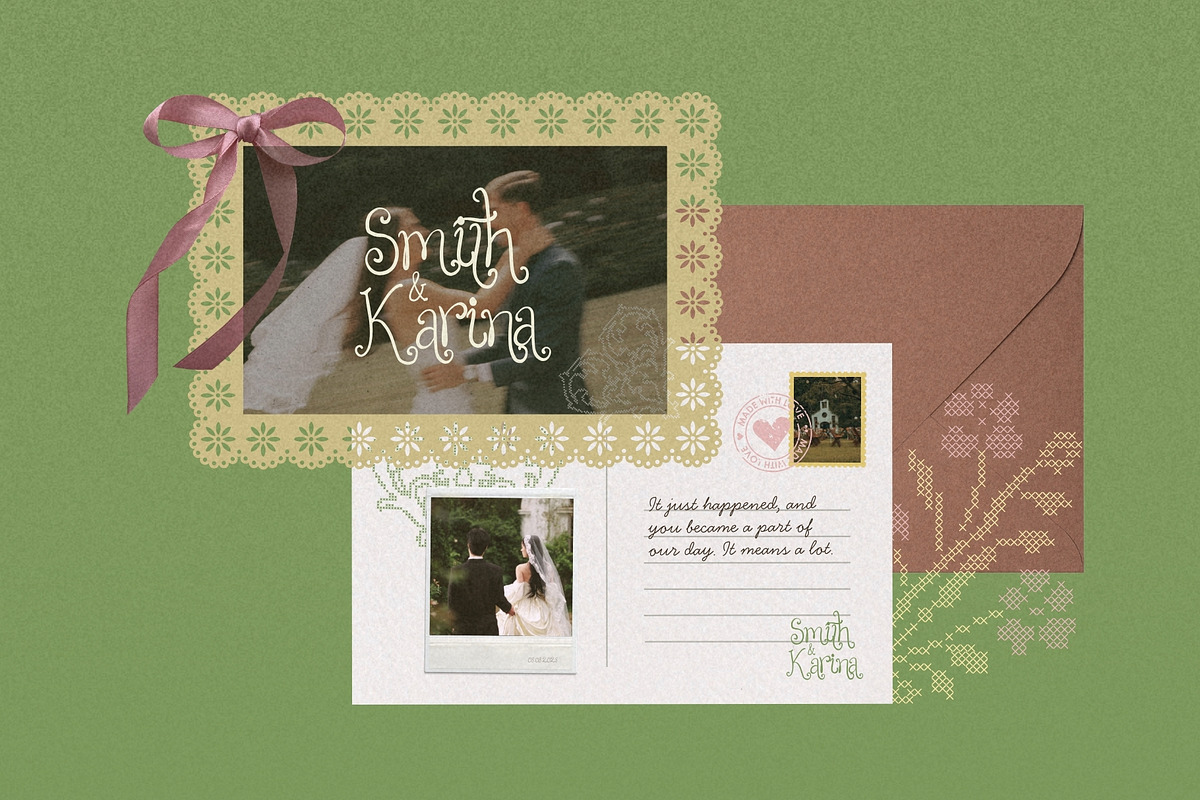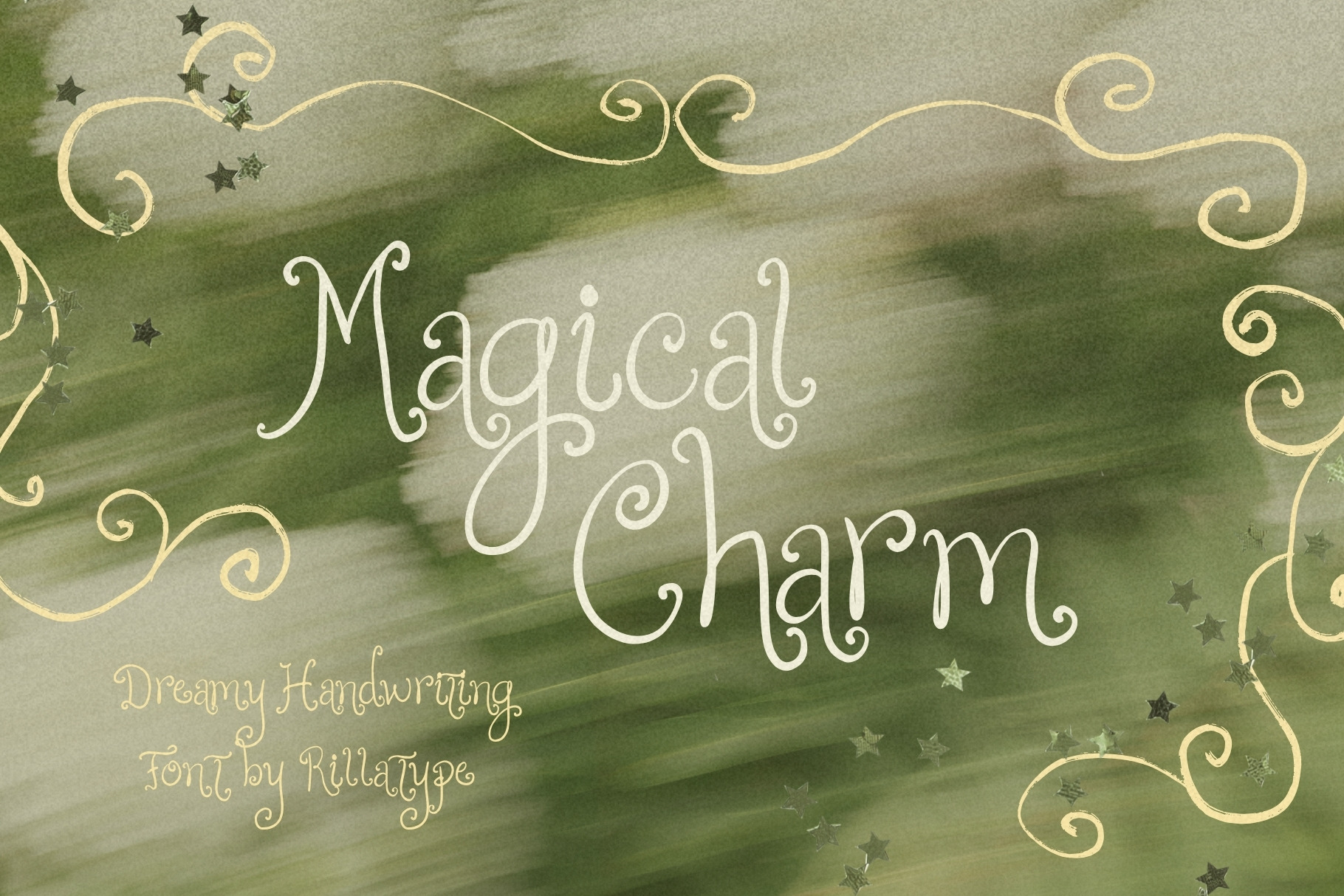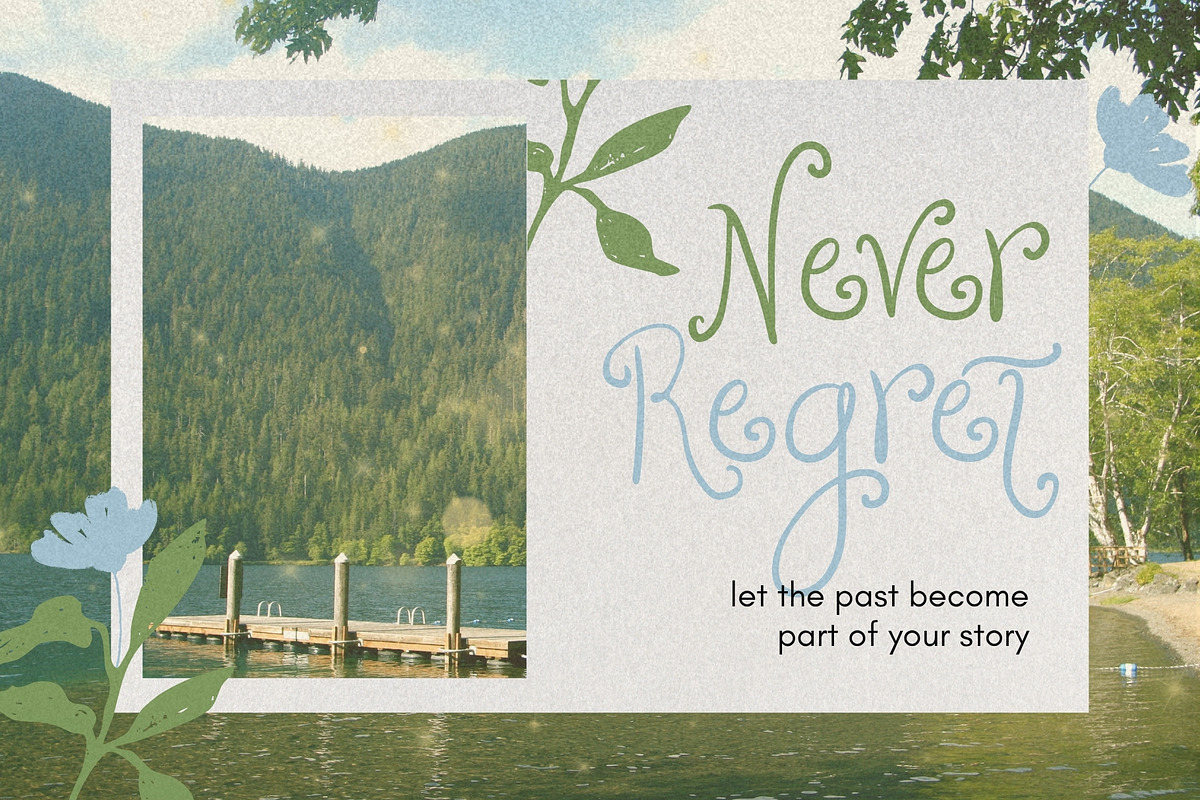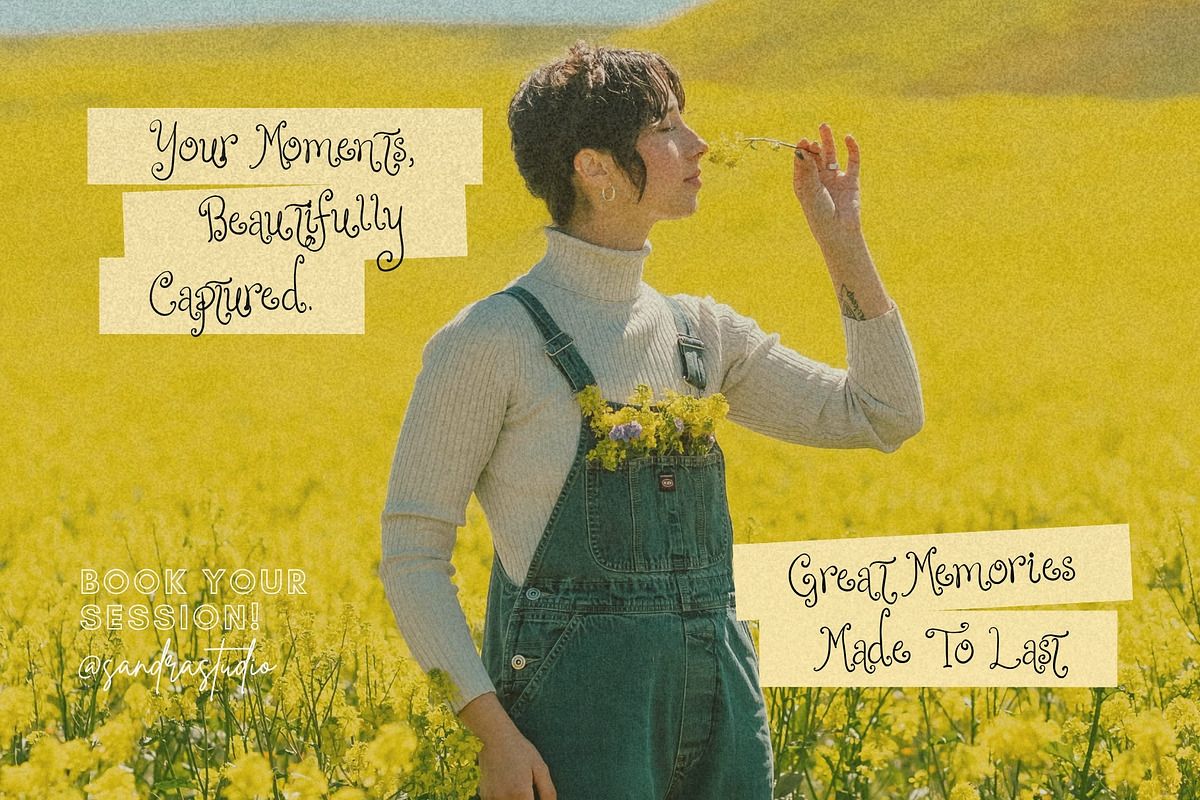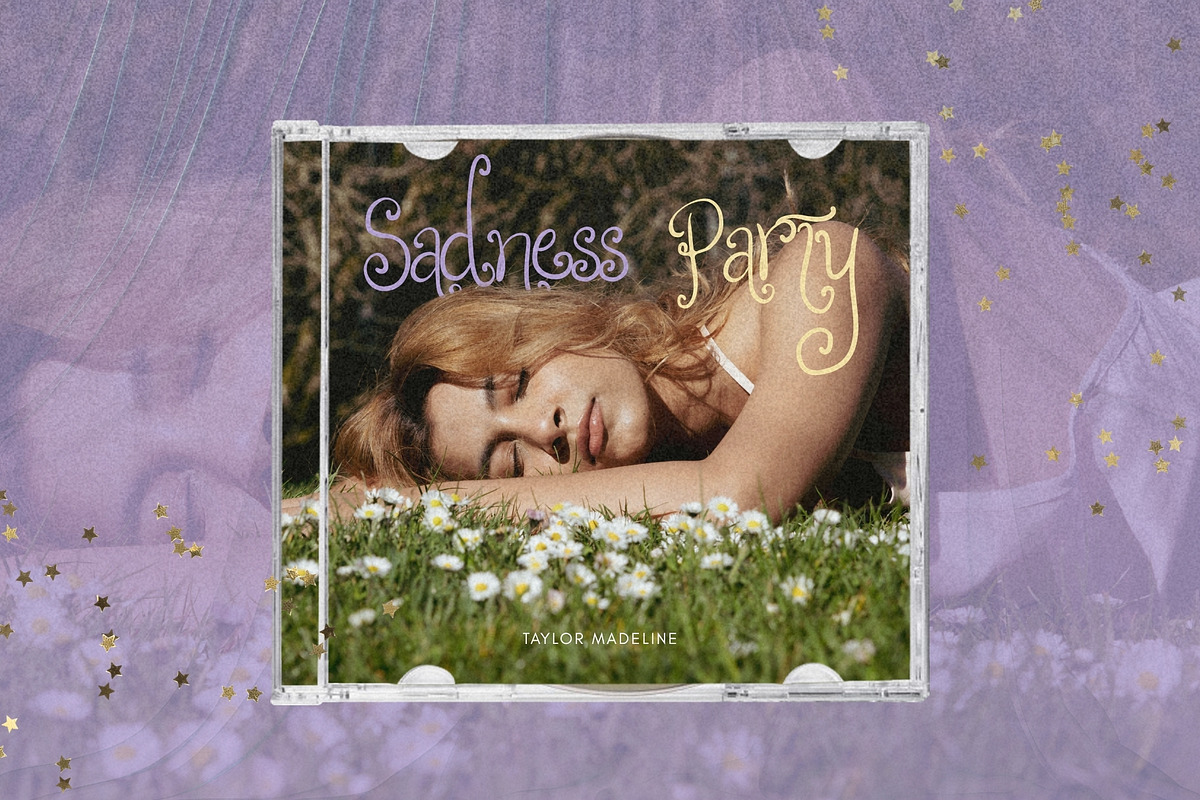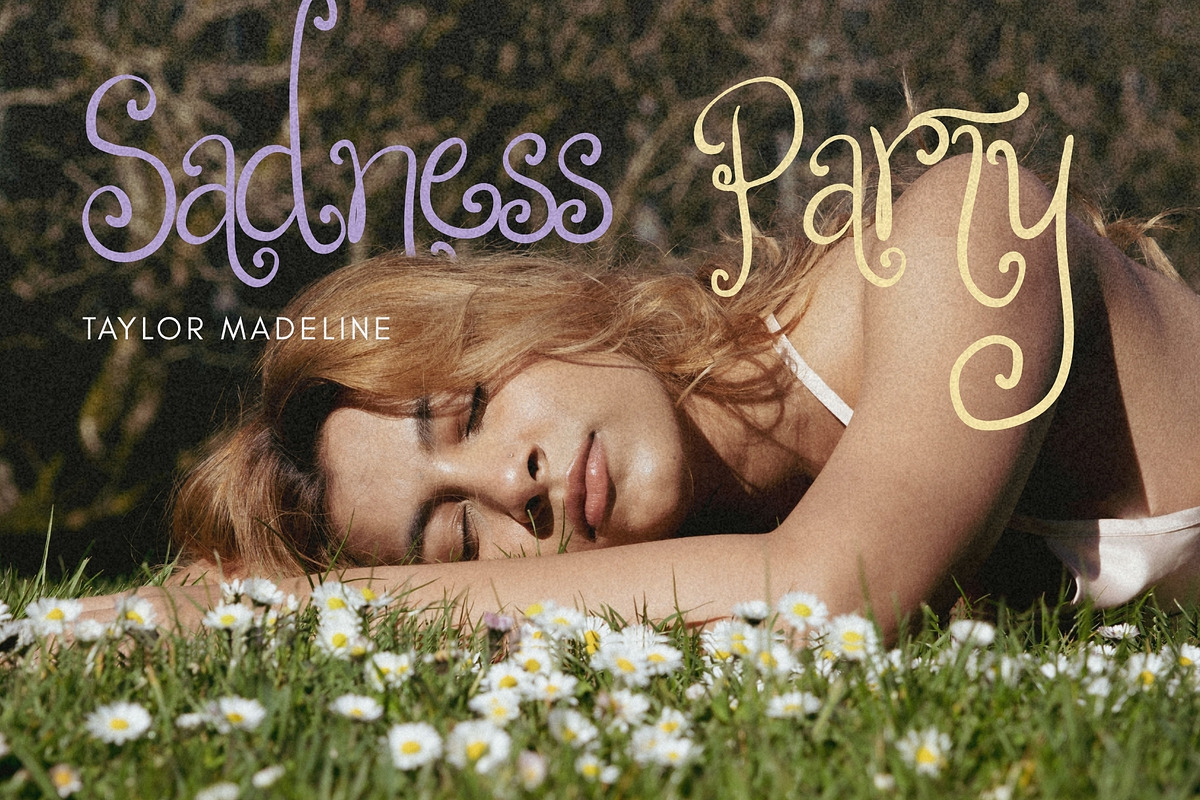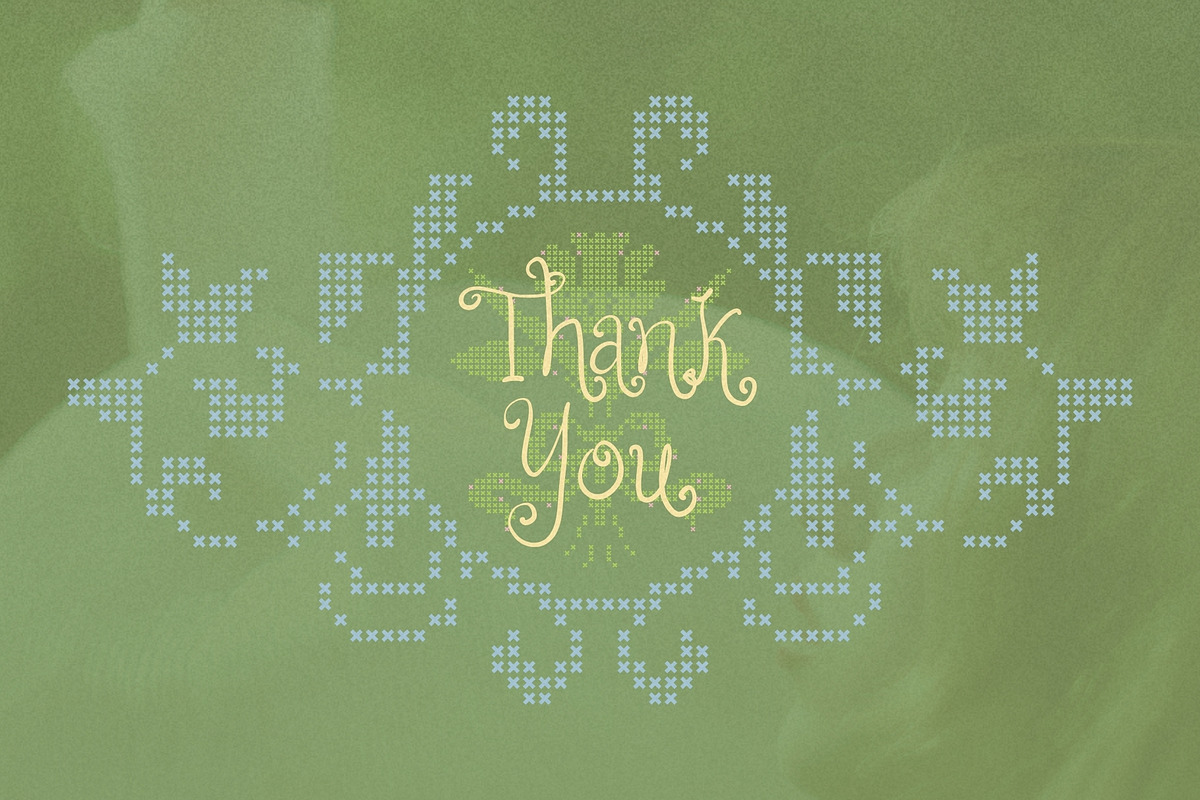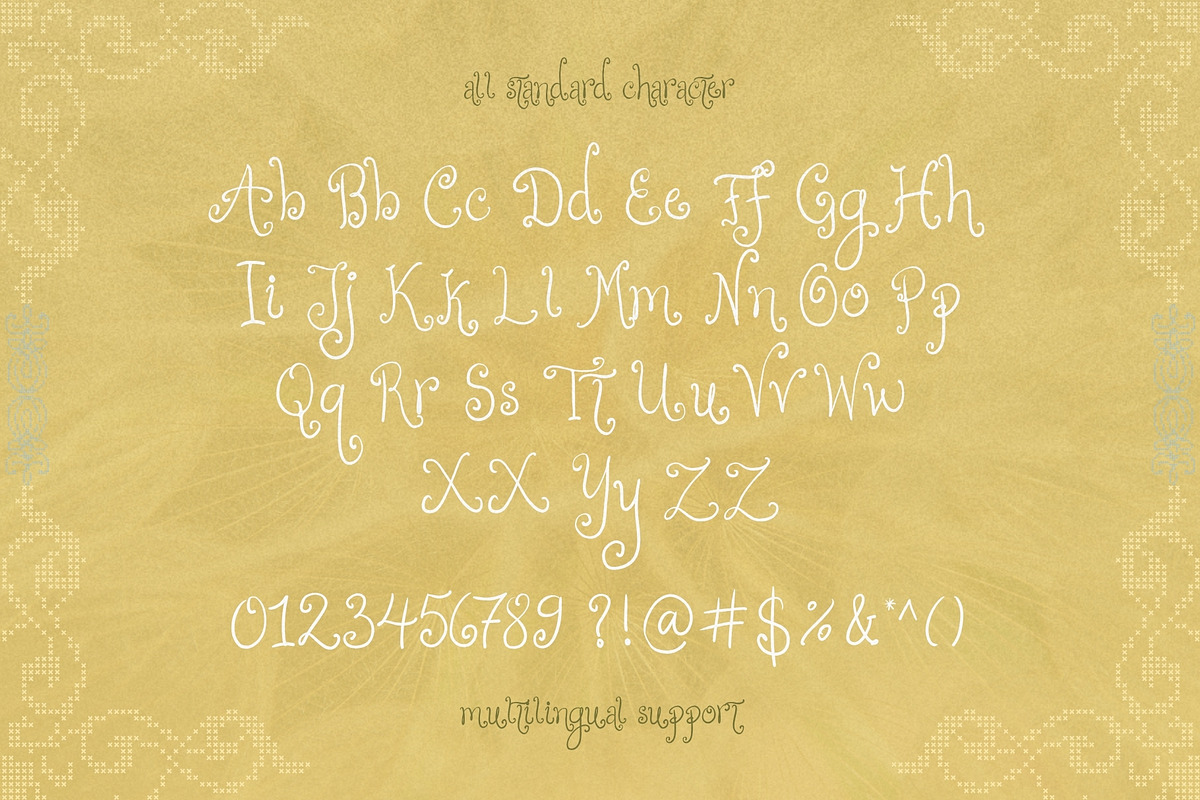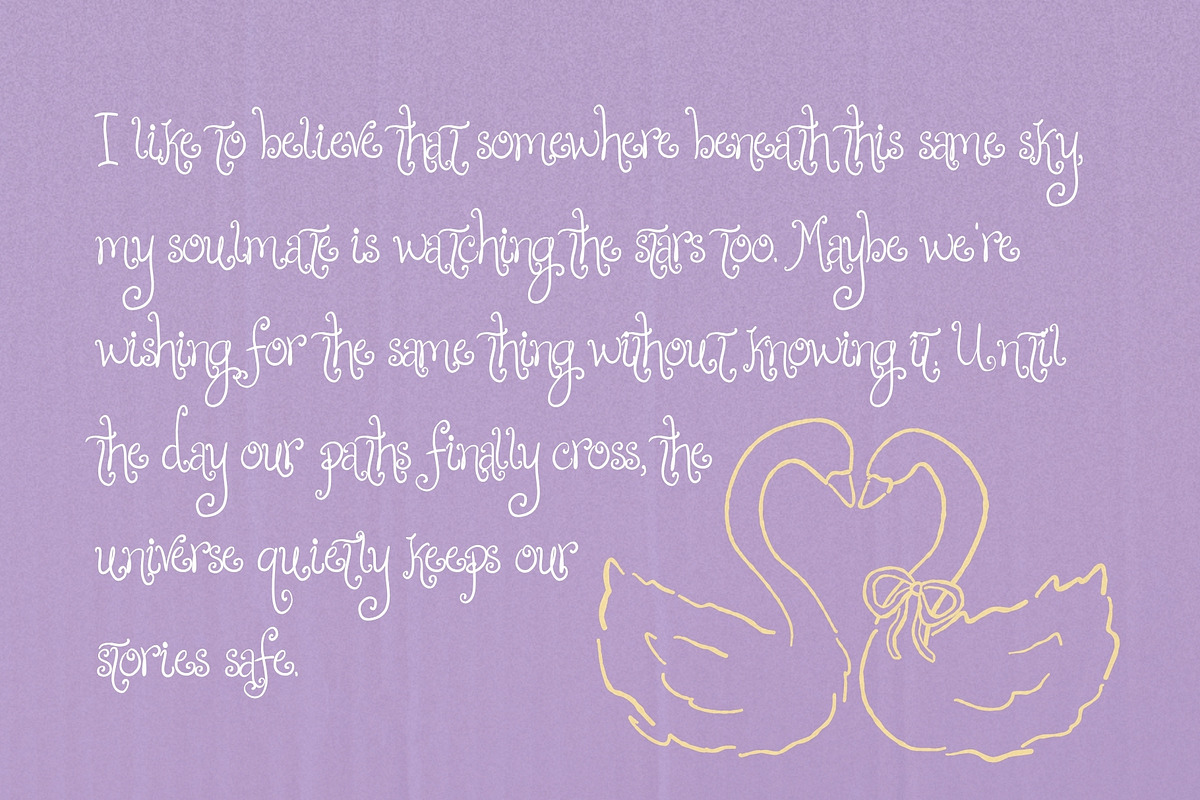
Magical Charm - Handwritten Font
Magical Charm is a dreamy handwritten font filled with soft, whimsical character and a touch of nostalgic charm. Its naturally flowing letterforms feel personal and expressive, as if they were written in a treasured journal, a handwritten note, or a postcard from somewhere far away.
With its delicate imperfections and playful rhythm, Magical Charm brings a warm, storybook-like feeling to every word. It works beautifully for romantic branding, book covers, poetry, quotes, invitations, packaging, social media graphics, editorial layouts, and any design that calls for something gentle, imaginative, and heartfelt.